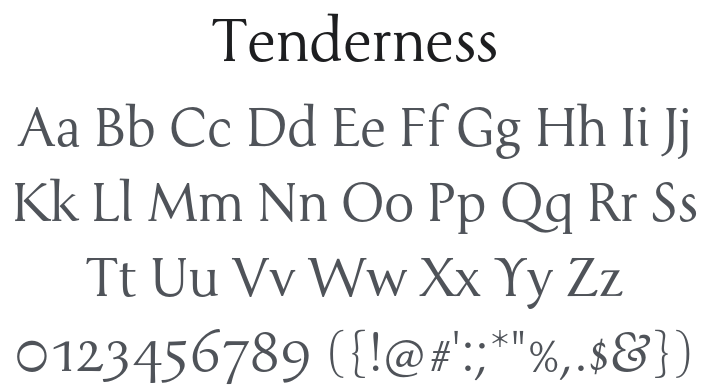
Tenderness Font
About Tenderness
Tenderness is a serif typeface designed to evoke a gentle impression, drawing inspiration from the structure and weight distribution of Old Roman typefaces.
We have refined every aspect of the font since version 0.501, improving readability by increasing the x-height and modifying the serif shapes. Adjustments were also made to slightly reduce the stroke weight, creating a cleaner, more refined look.